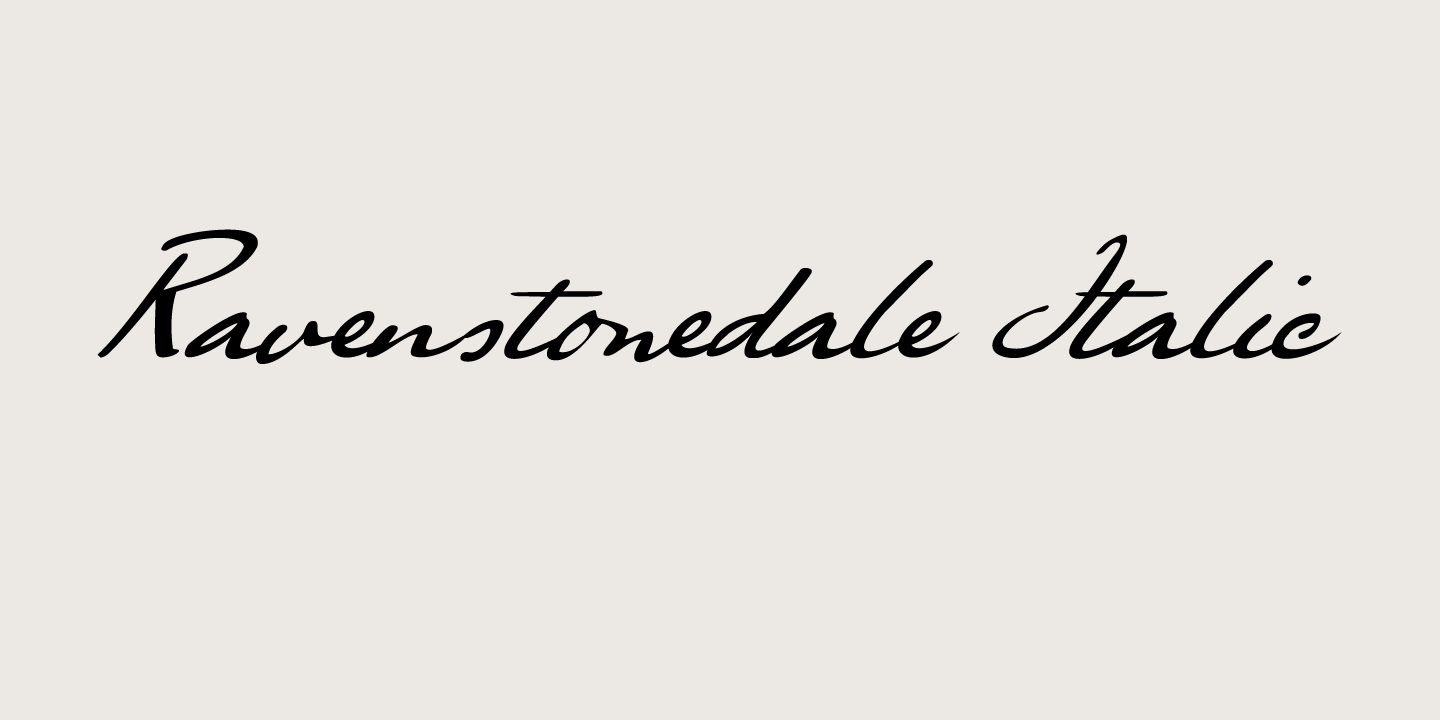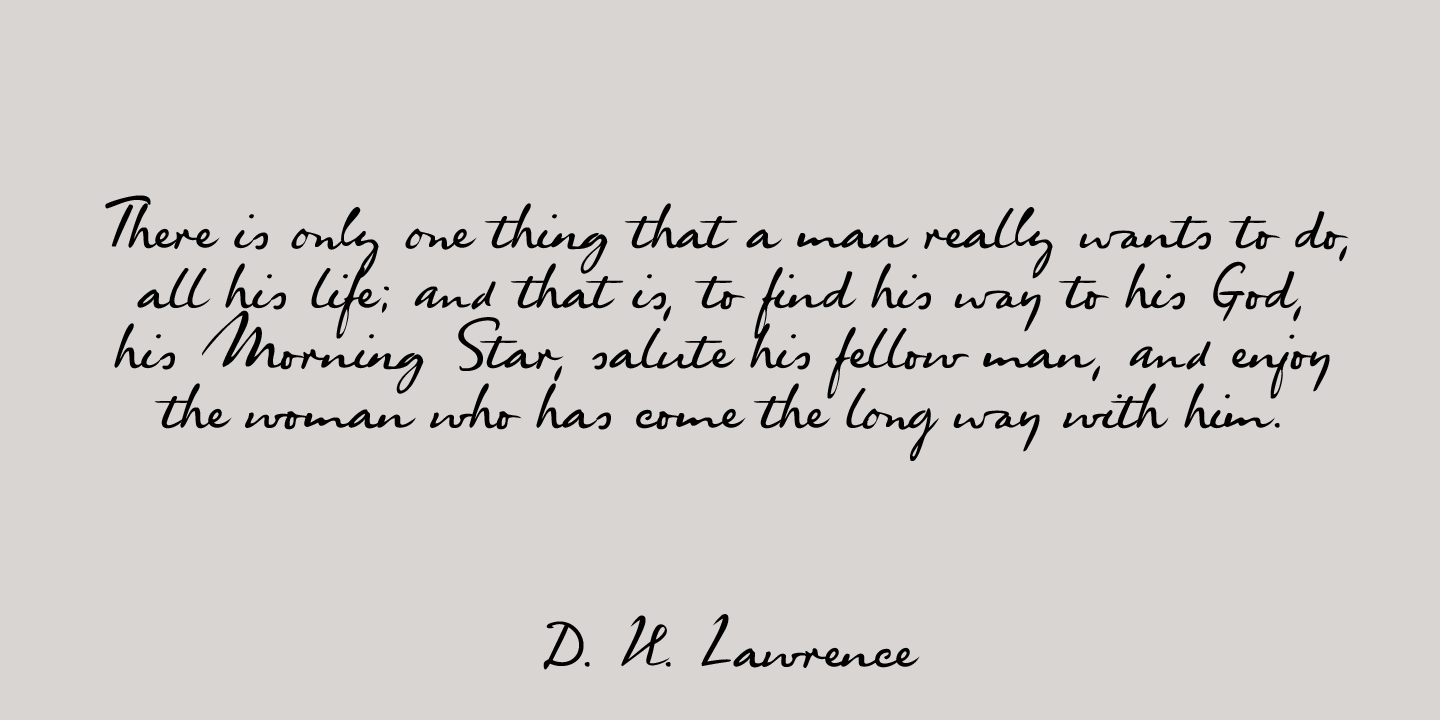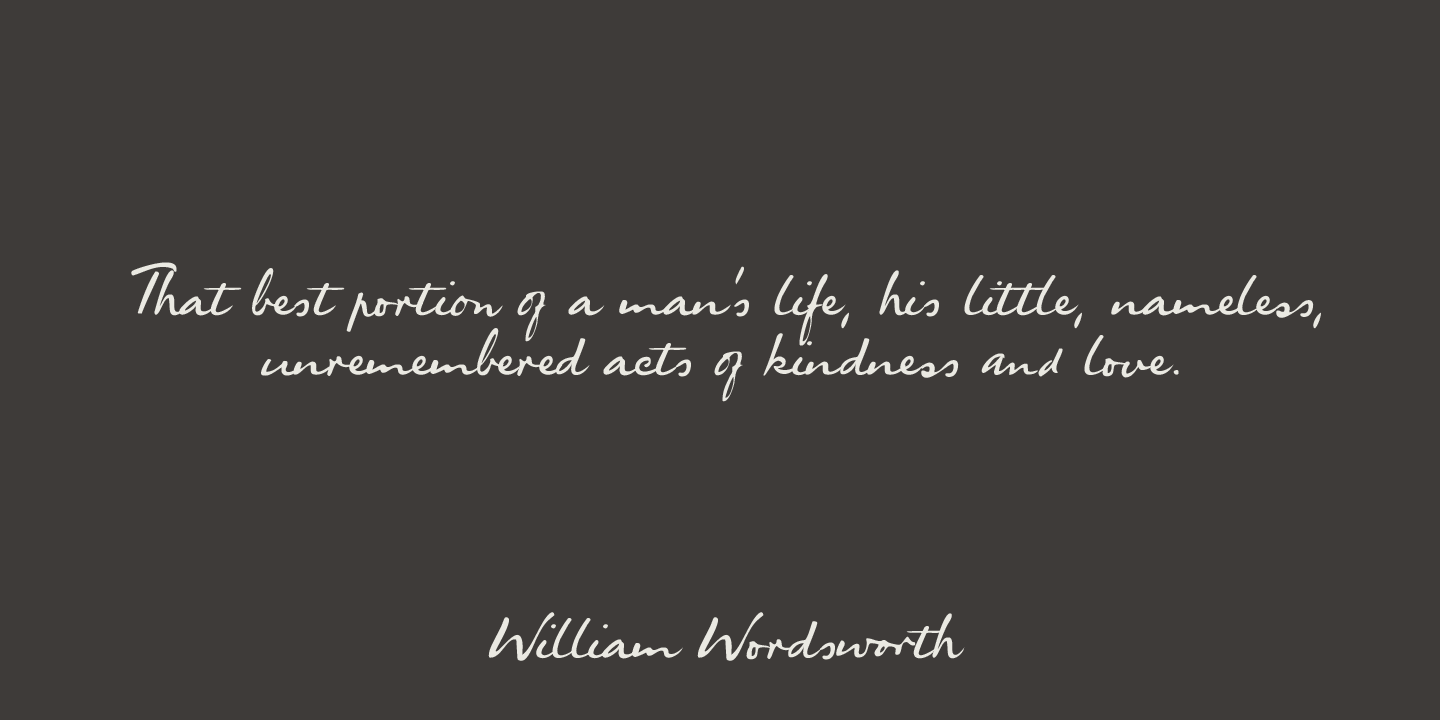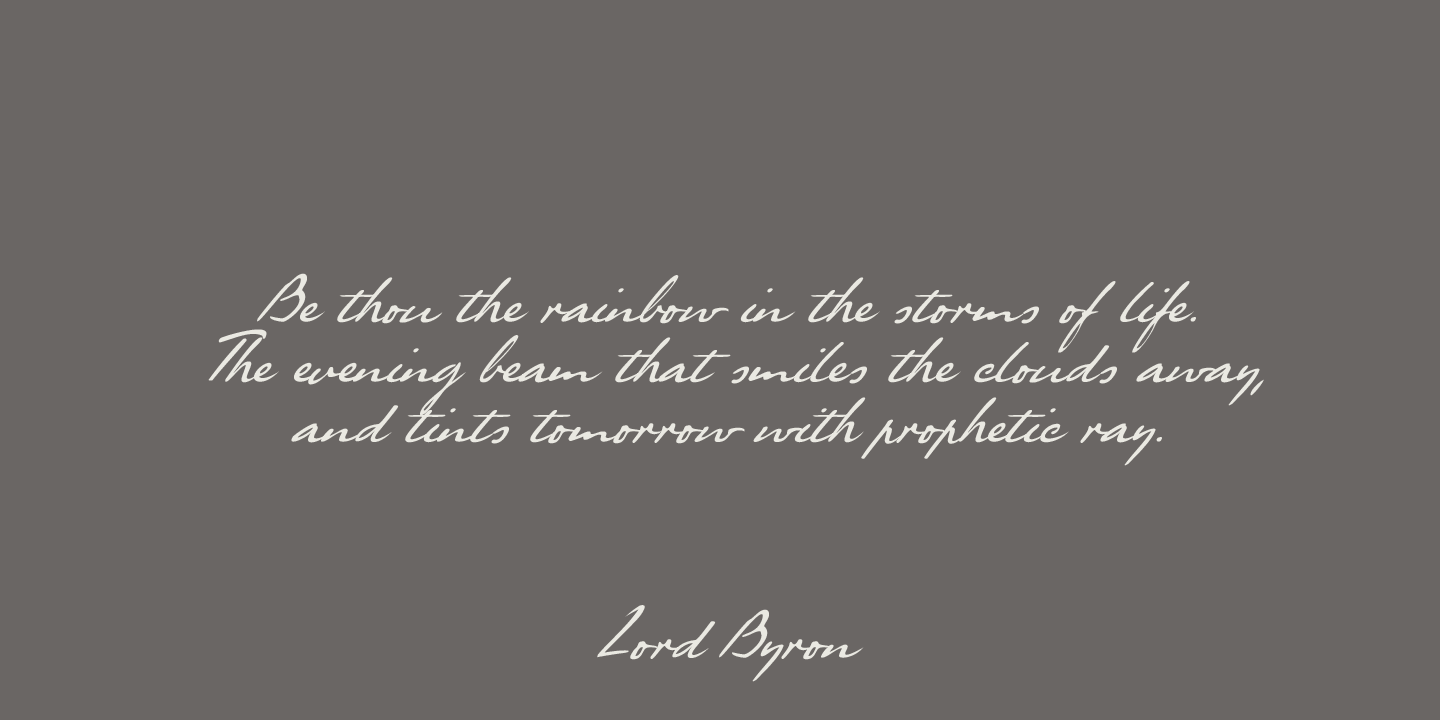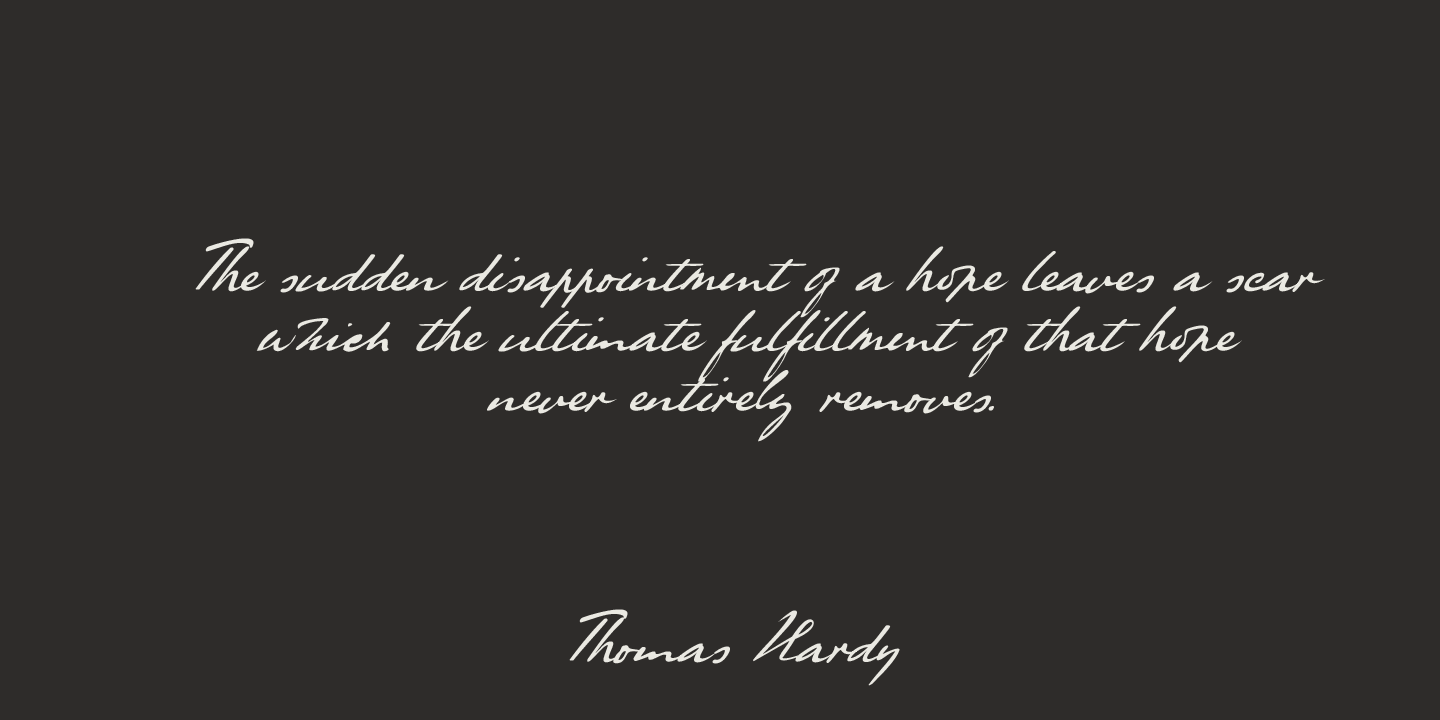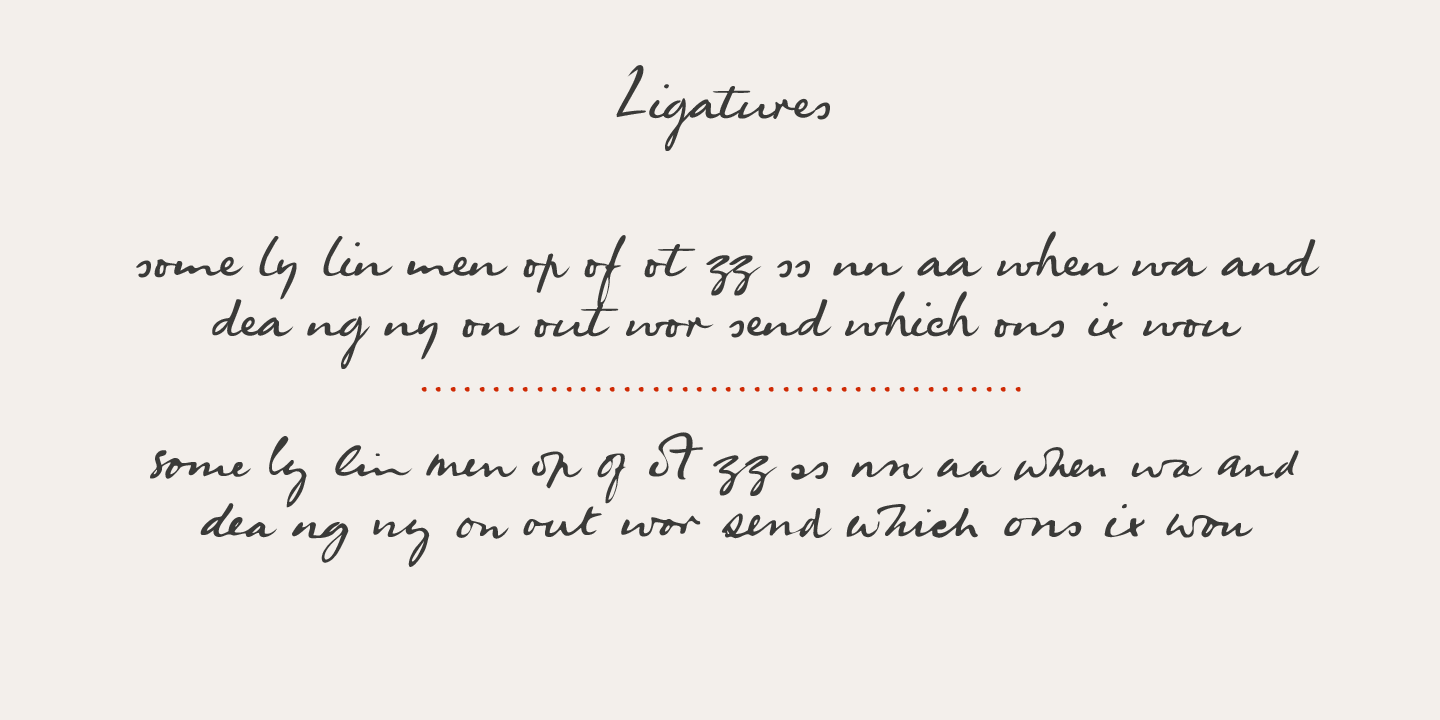
Ravenstonedale
Ravenstonedale is a village in Cumbria, England. There's not much to see in this quaint village, but the landscape surrounding it is beautiful.
This font was sort of based on a number of handwritten letters by English author D.H. Lawrence. It is not a true reflection of the man's handwriting, though, as I had to design a lot of missing glyphs myself; it was merely an inspiration.
Ravenstonedale comes in a slightly slanted 'regular? version and a more slanted ?Italic? version. In order to stay true to the handwritten nature of this script, I have added a lot of ligatures, plus all the diacritics you could hope for.